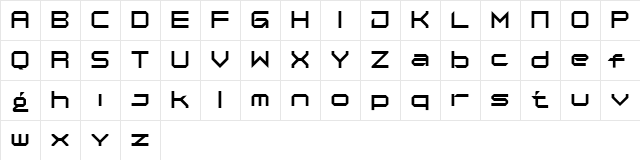
Jx Tabe DEMO Regular Free Font
Jx Tabe DEMO Regular
Foundry: Jetsmax Studio
Designer: Khairil Anwar
Design Context for Jx Tabe DEMO
Jx Tabe DEMO is a composed and adaptable typeface that performs quietly and consistently across a wide range of design contexts.